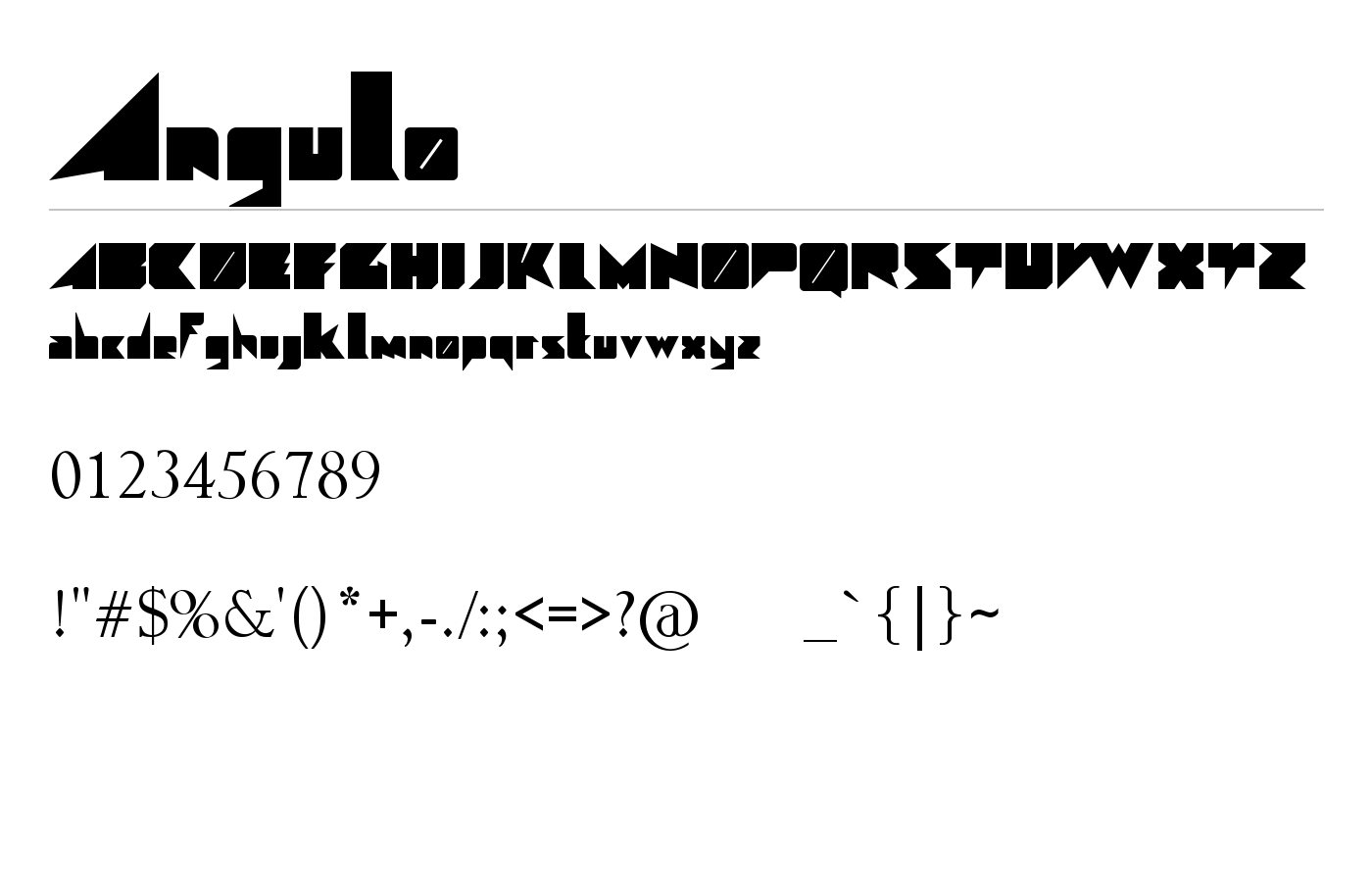
Angulo is a bold, geometric sans serif font characterized by sharp, angular shapes and heavy weight that create a futuristic and striking appearance. Its unique letterforms have a strong visual impact, making it ideal for headlines, logos, and designs that need a modern, edgy vibe. This font works best in creative projects where a distinctive, powerful statement is desired.
Angulo Font
About Angulo Font